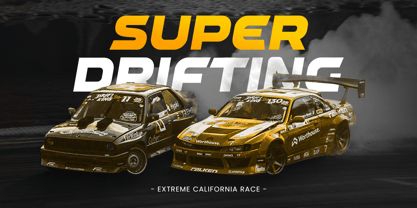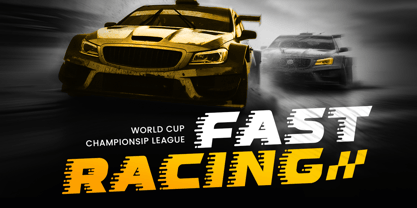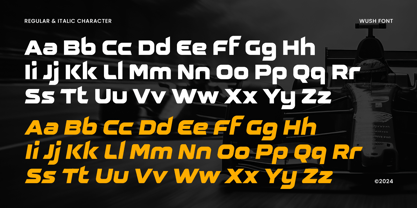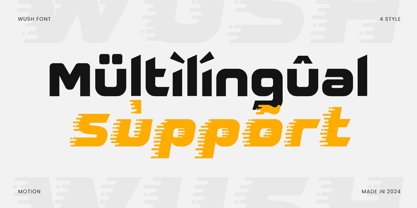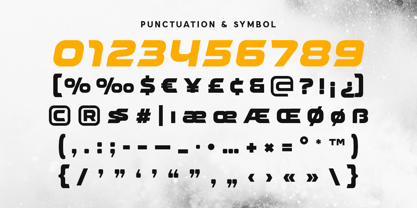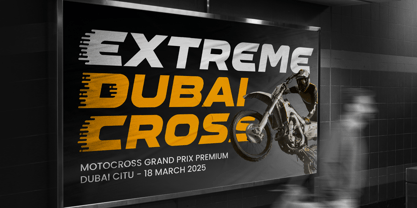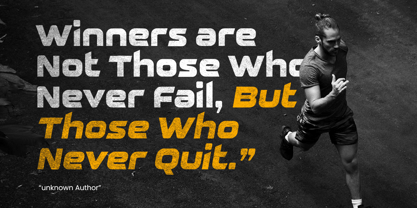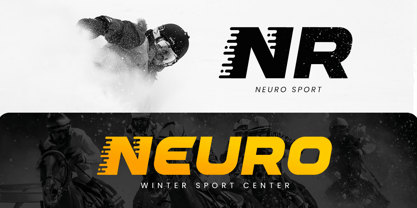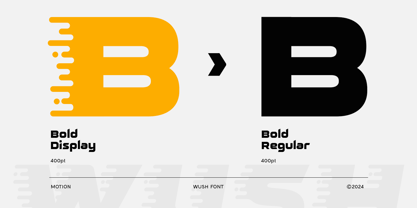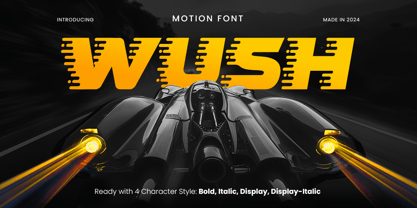
Wush - Motion Font Wush is a dynamic motion font created to bring energy and movement to your designs. Its unique character shapes are ideal for projects that need an eye-catching, contemporary touch, from animated titles to bold branding. With a focus on fluidity and visual impact, Wush captures attention and delivers a lively, modern feel to any visual presentation. Perfect for motion graphics, digital advertisements, and innovative design projects, Wush offers versatility and a creative edge. Whether used in video content or as a static display, this font adds a sense of speed and excitement, embodying the essence of modern kinetic design. Elevate your projects with Wush, where motion and style converge. Let your creative work resonate with energy and modernity through this unique and impactful typeface. Wush Motion Font Features: Dynamic and Energetic Character Designs Ready with 4 Style: Regular, Italic, Display, Display Italic Punctuation, Number, and Symbol Include 4 formats already Uppercase and Lowercase Opentype Features Multilingual Characters available for: Afrikaans, Albanian, Asu, Basque, Bemba, Bena, Breton, Chiga, Cornish, Dutch, English, Estonian, Filipino, Finnish, Friulian, Galician, German, Gusii, Indonesian, Irish, Italian, Kabuverdianu, Kalenjin, Kinyarwanda, Luo, Luxembourgish, Luyia, Machame, Makhuwa-Meetto, Makonde, Malagasy, Manx, Morisyen, North Ndebele, Nyankole, Oromo, Portuguese, Quechua, Romansh, Rombo, Rundi, Rwa, Samburu, Sango, Sangu, Scottish Gaelic, Sena, Shambala, Shona, Soga, Somali, Spanish, Swahili, Swedish, Swiss. Thank you and best of luck with your designs!
Wush